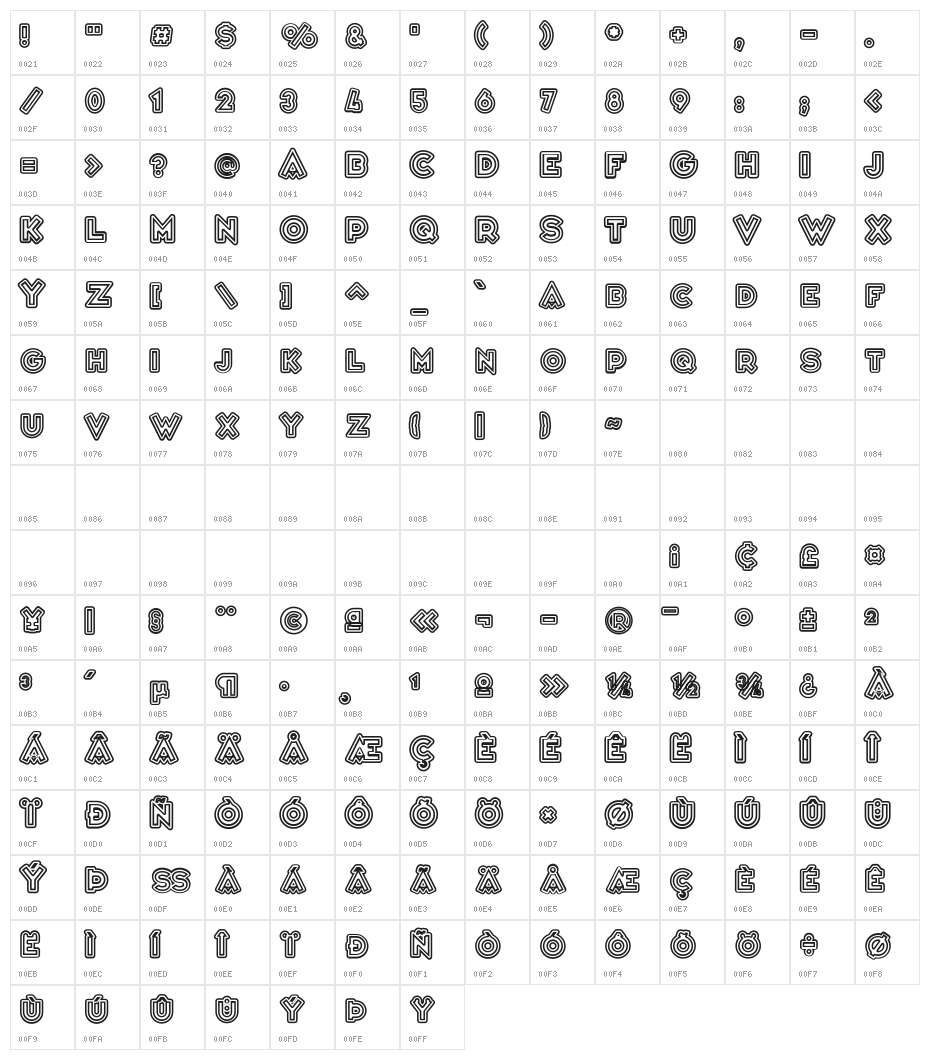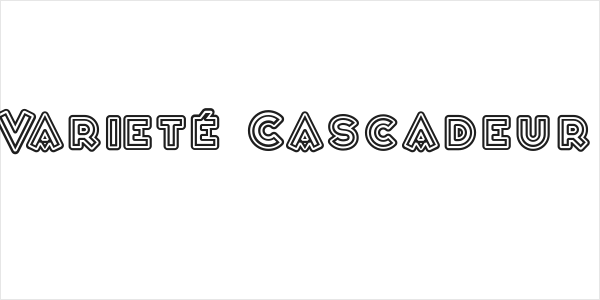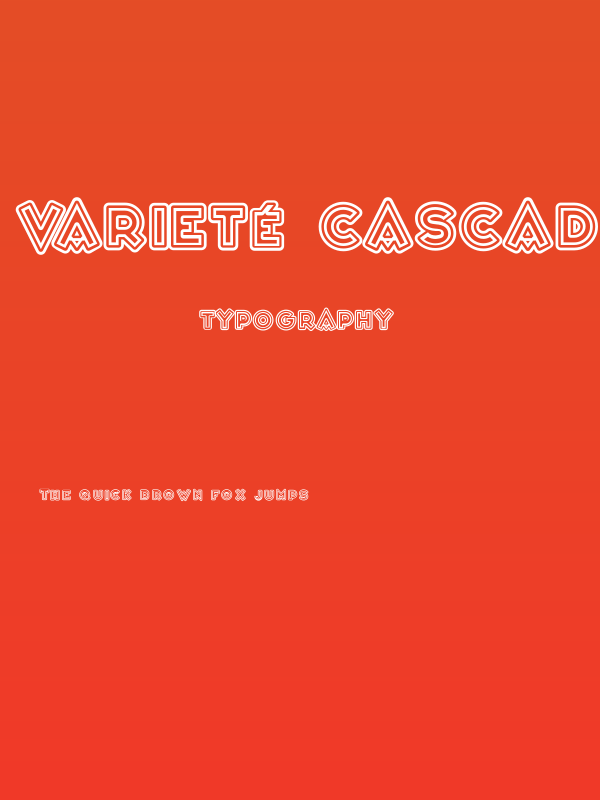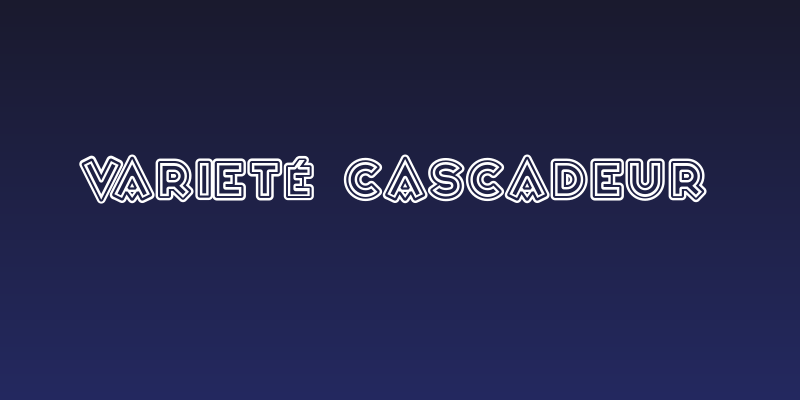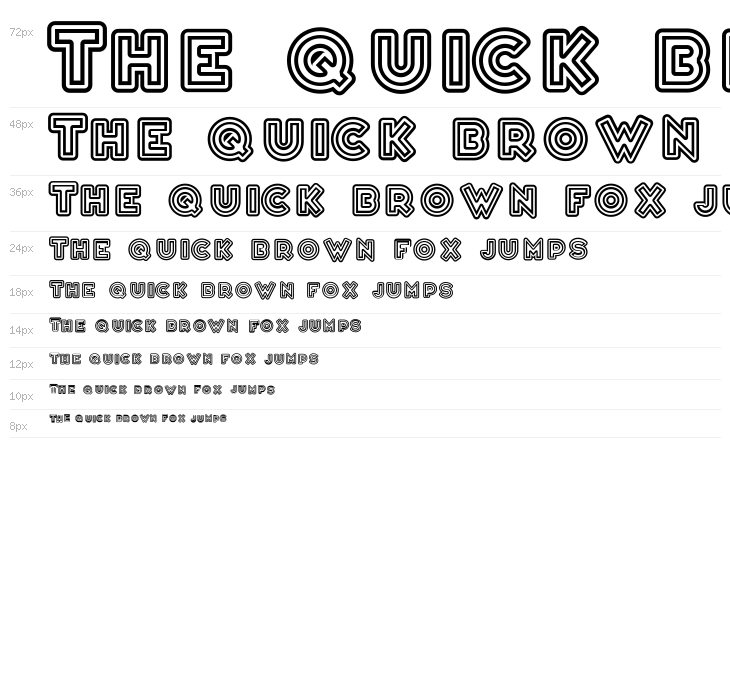
Varieté Cascadeur Font
Varieté Cascadeur Description
This font features a bold, geometric style with a three-dimensional effect created by layered outlines. Each character is crafted with precision, showcasing a unique blend of modern and retro aesthetics. The uppercase and lowercase letters maintain a consistent design, with sharp angles and clean lines that give a sense of depth and movement. The numerals and special characters follow the same design principles, ensuring a cohesive look across all elements. The font's playful yet structured appearance makes it ideal for eye-catching designs.
| Proposed Projects | Ideal for posters, logos, and branding projects that require a bold and dynamic visual impact. |